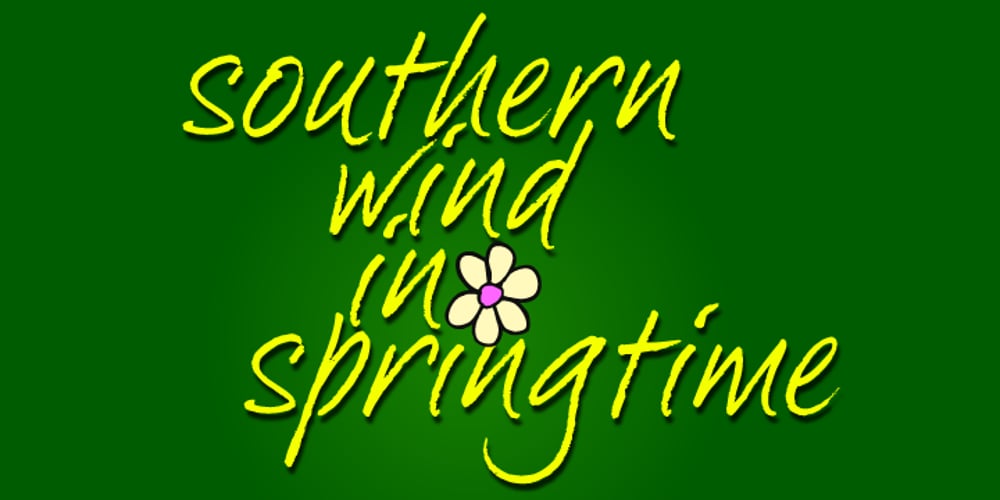
Brandy BF
Brandy BF font
Brandy BF Font Family was designed by John Bomparte and published by Bomparte’s Fonts. Brandy BF contains 1 styles and family package options. Felt tip-written and full of expressive lines, Brandy BF exudes much verve and energy; and unlike many scripts, sets rather well in all caps situations. Use Brandy BF as a superb choice for everything from upscale restaurant menus to projects requiring a personable touch.